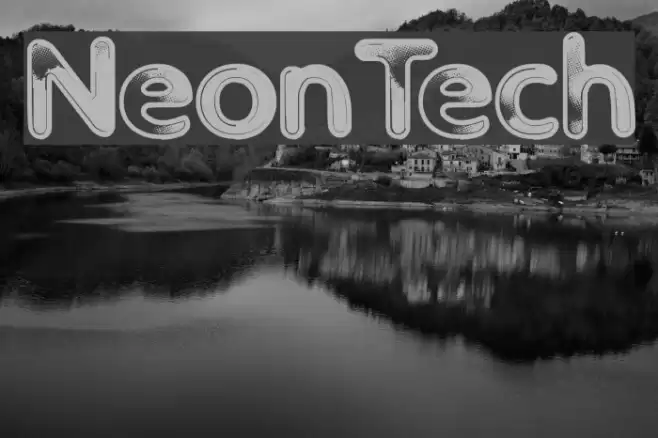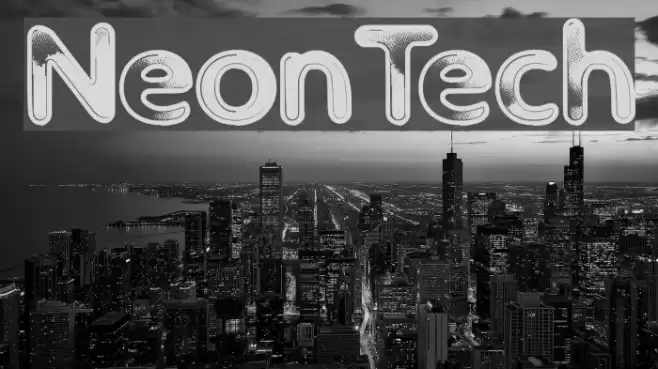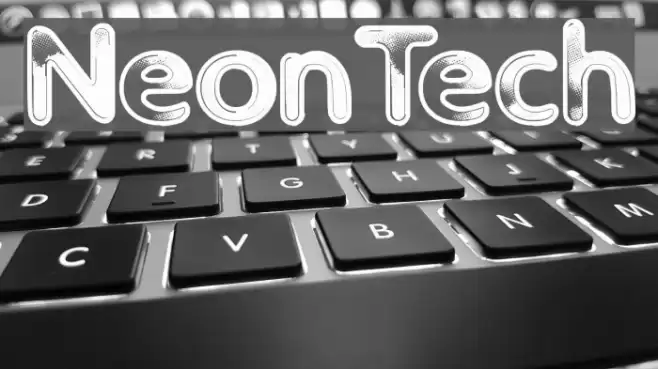
NeonTech Font
NeonTech Description
This font features a bold and futuristic design with a distinct neon-inspired aesthetic. The characters are outlined with a thick, rounded stroke that gives a glowing effect, reminiscent of neon signs. The interior of each letter is filled with a textured pattern, adding depth and a slightly distressed look. The uppercase and lowercase letters maintain a consistent style, with rounded edges and a uniform thickness. The numerals and special characters follow the same design principles, ensuring a cohesive appearance across all elements. This font is ideal for projects that require a modern and eye-catching display, capturing attention with its unique and vibrant style.
A bold, neon-inspired font with a textured, glowing effect from Uncategorized fonts.
- Proposed Projects: Ideal for futuristic branding, neon-themed posters, digital art, and eye-catching headlines.